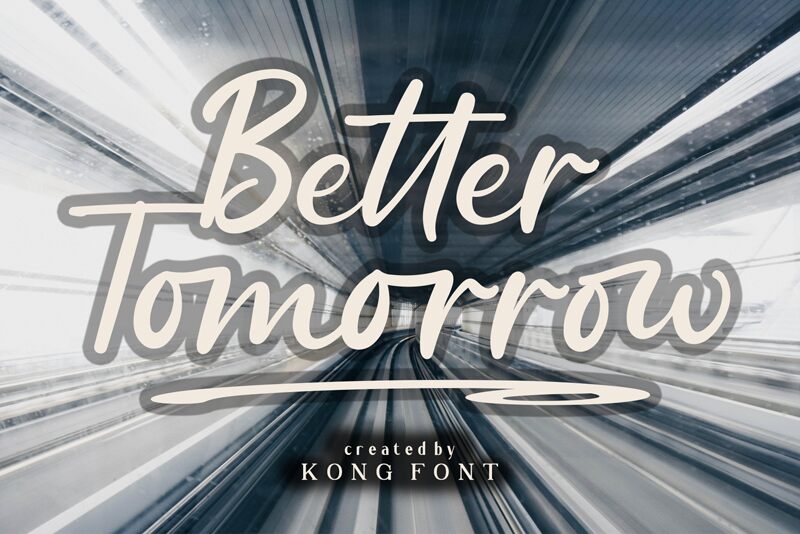
Better Tomorrow font family by Kong Font offers a collection of 6 stylish handwritten font styles infused with dynamic, expressive, and modern script elements. Designed with casual elegance and energetic flow, the free font family presents a distinctive informal charm and contemporary appeal.
This versatile and stylish handwriting font is easy to read and writes with a slightly relaxed feel. Increase the visual appeal of your artistic and brand designs with the exceptional fonts in Better Tomorrow.